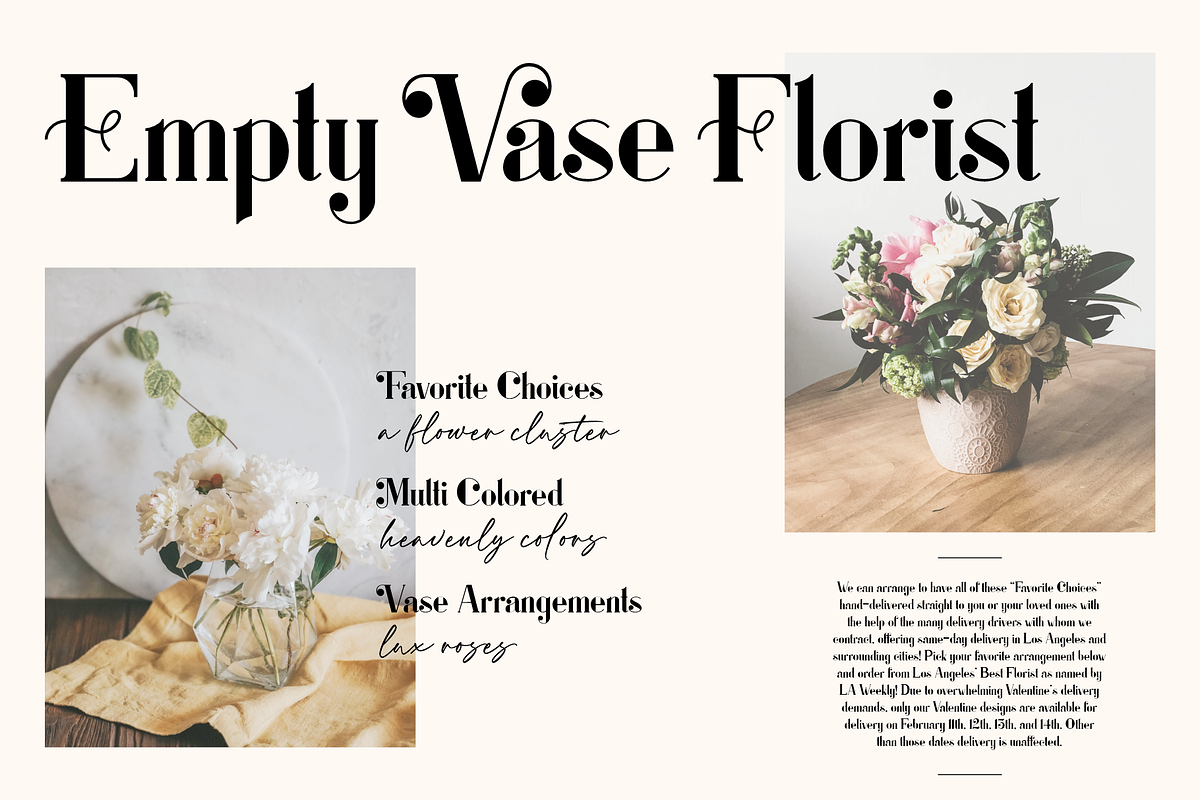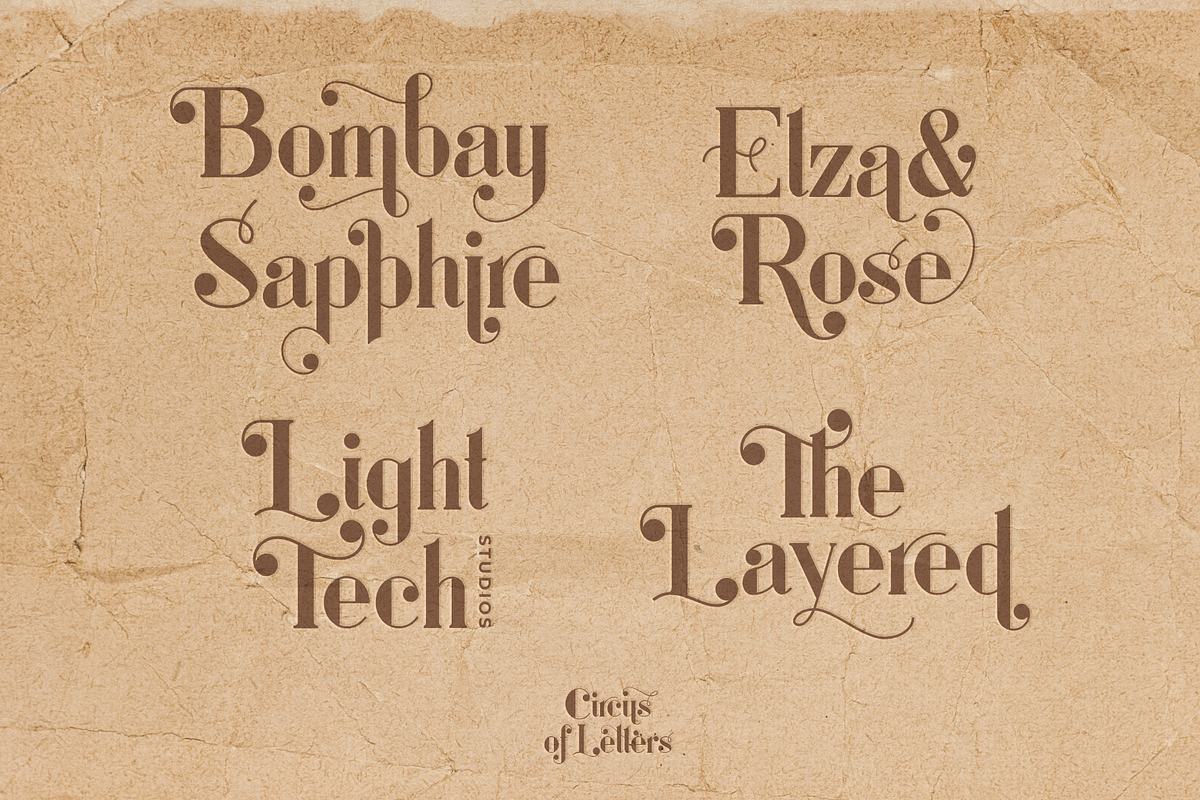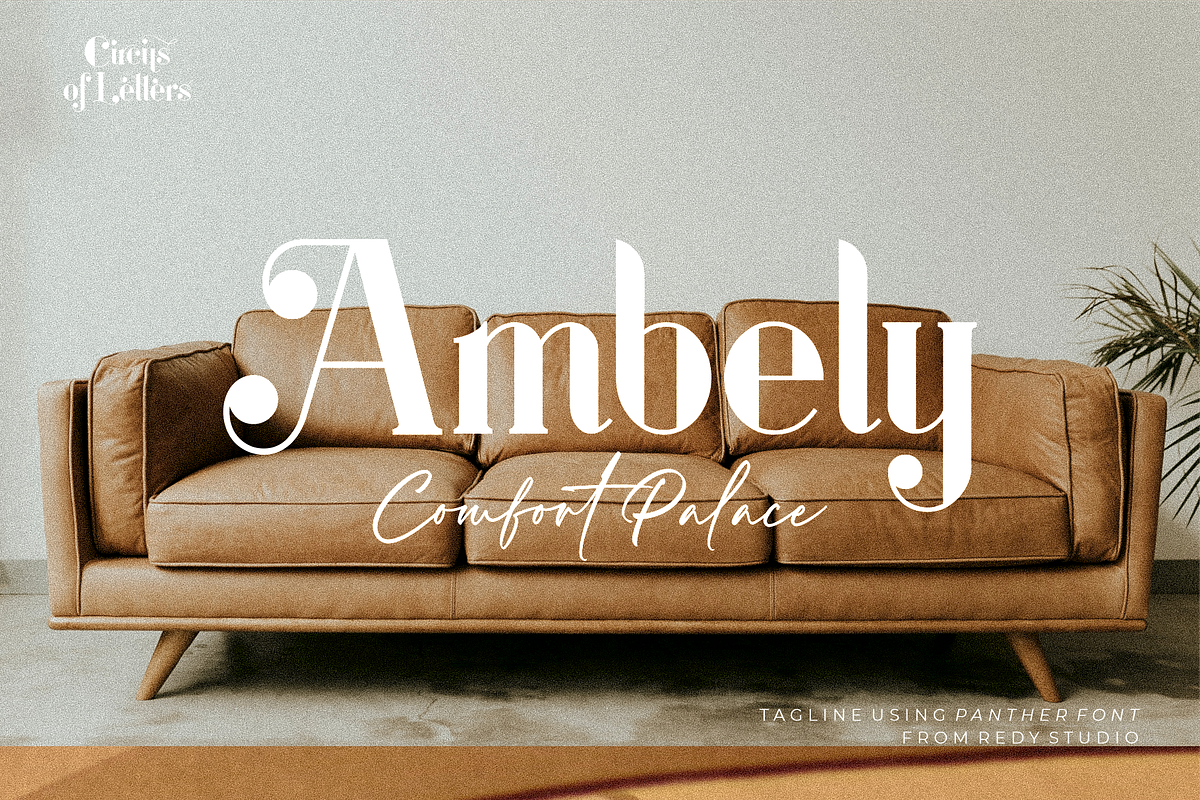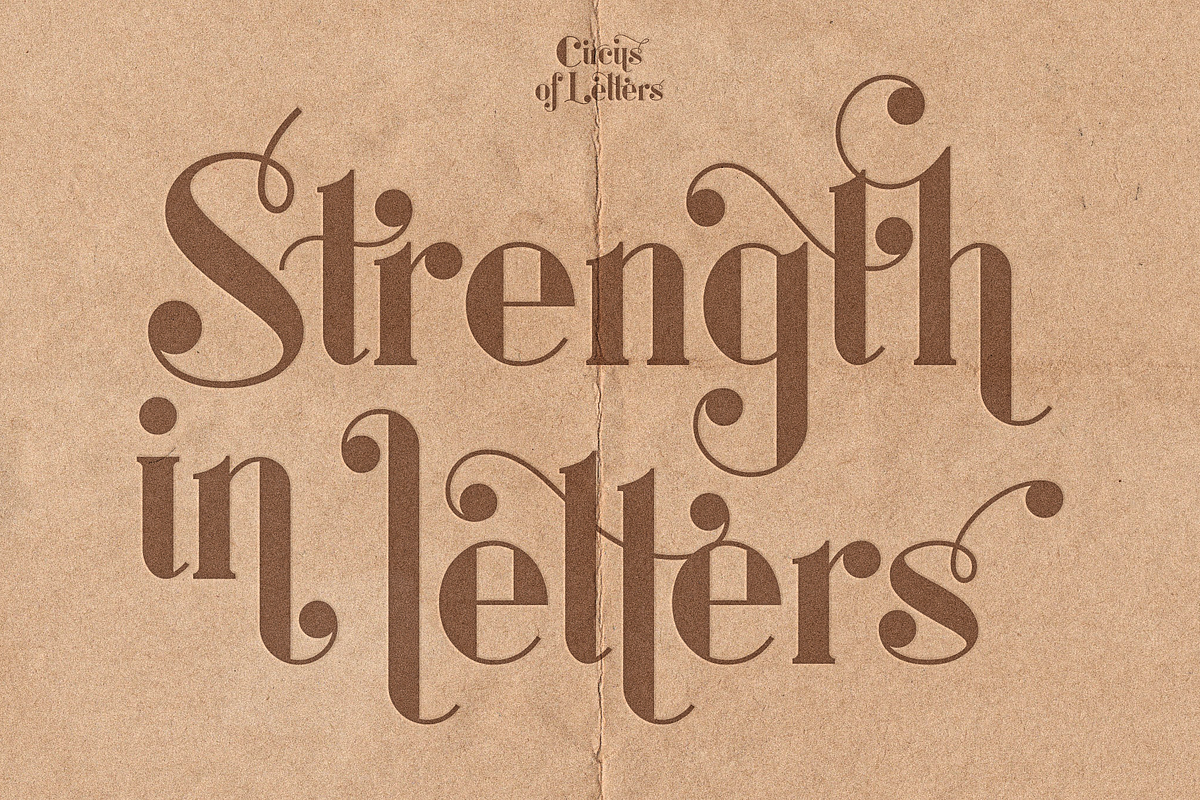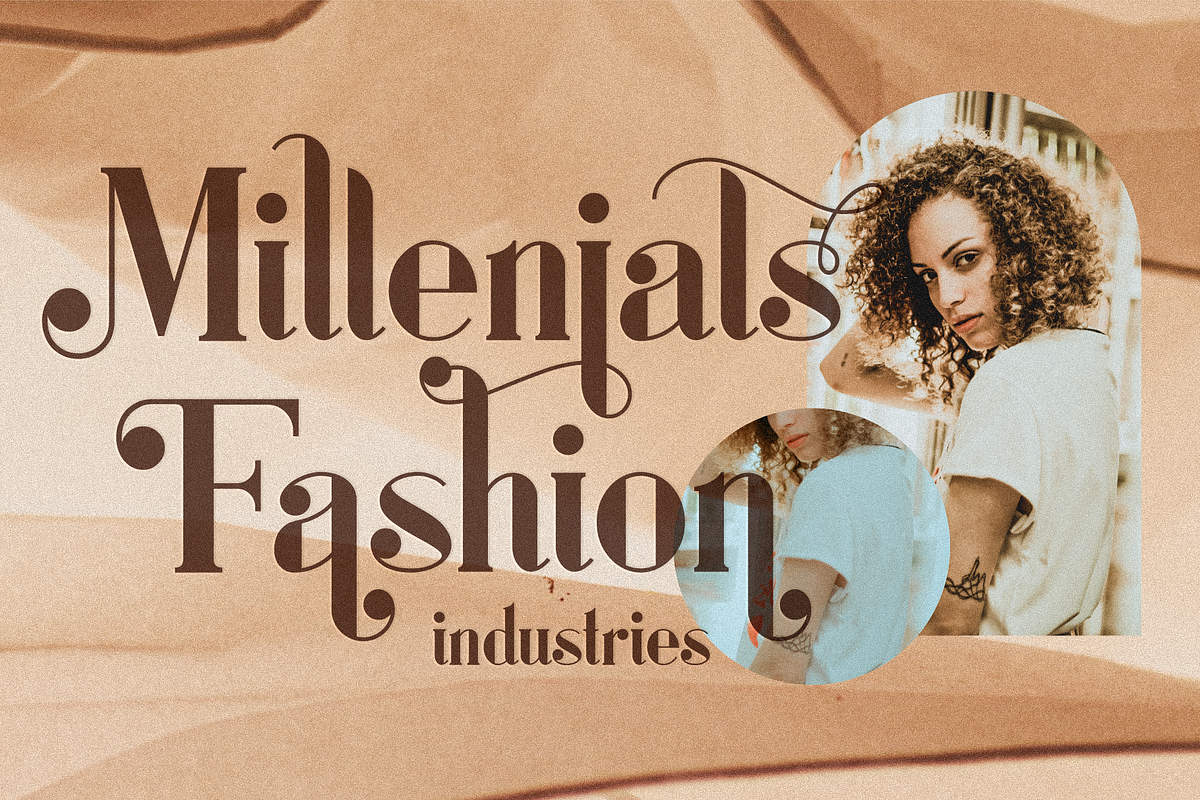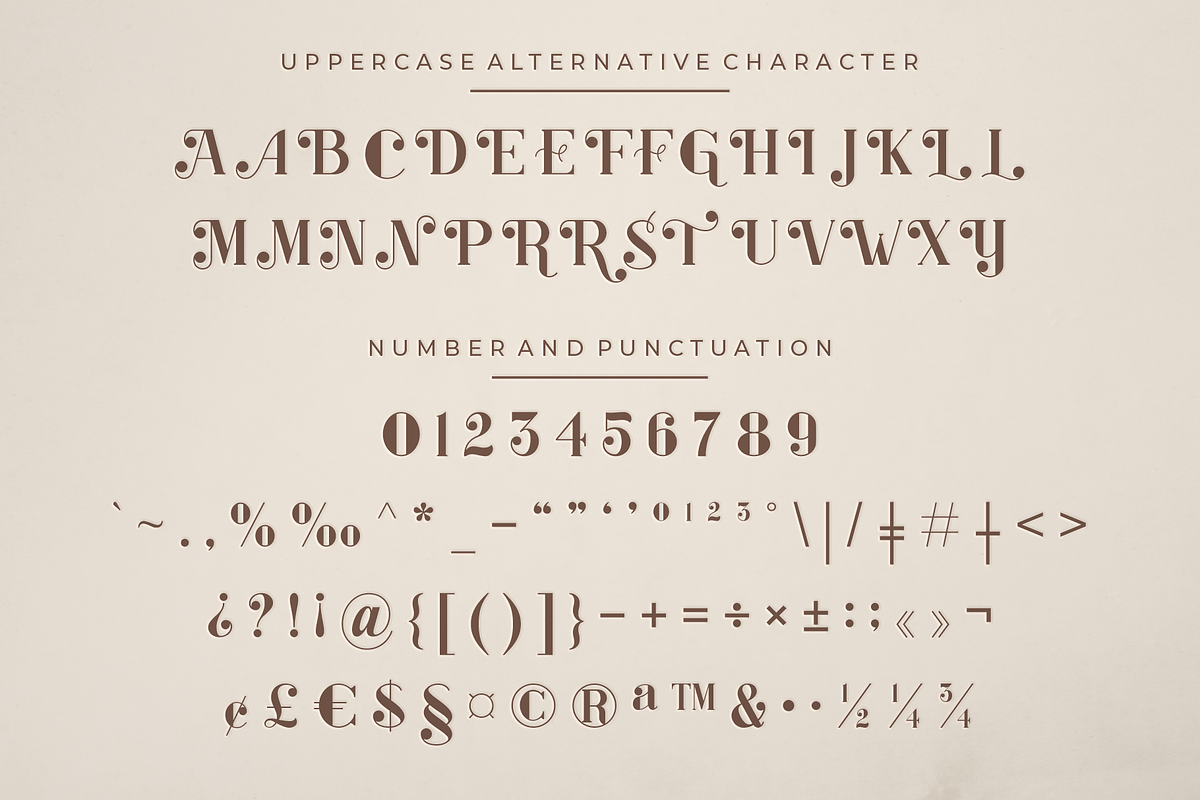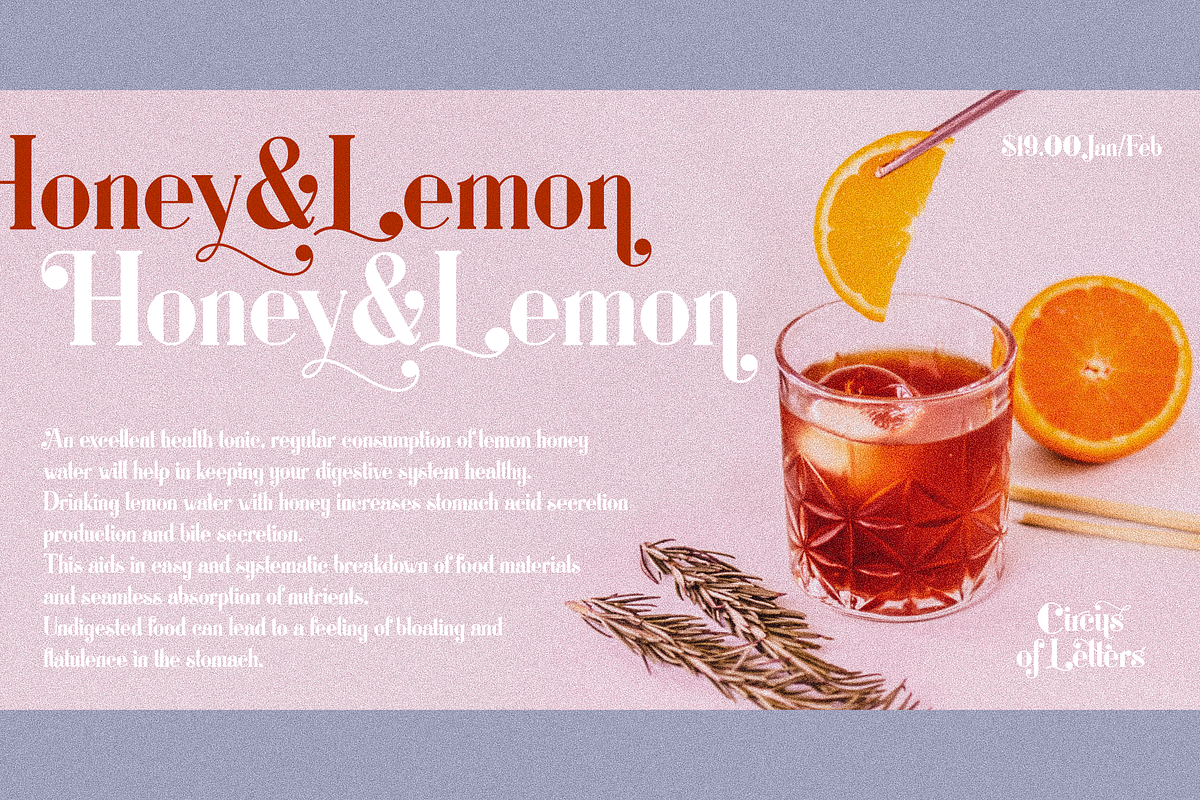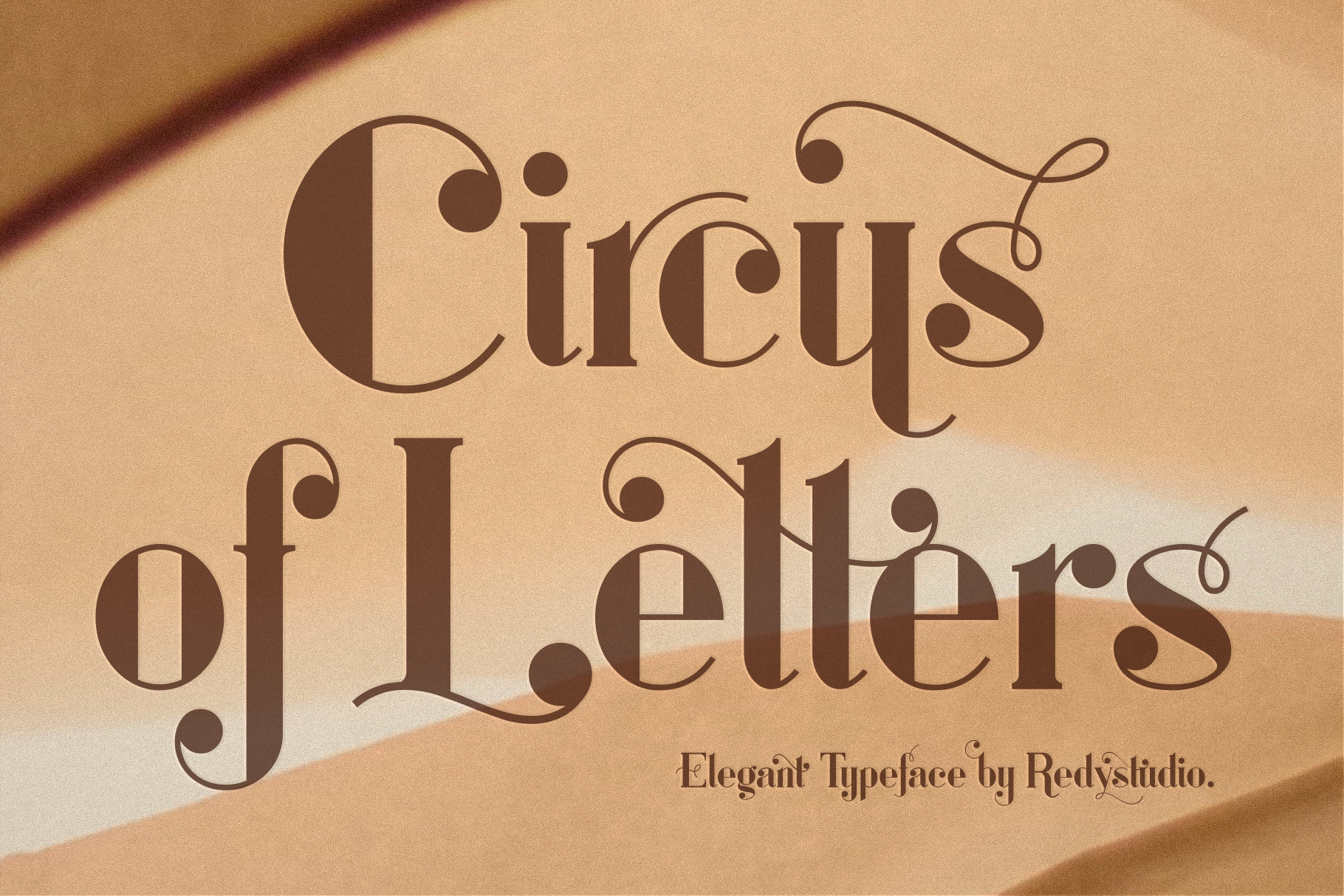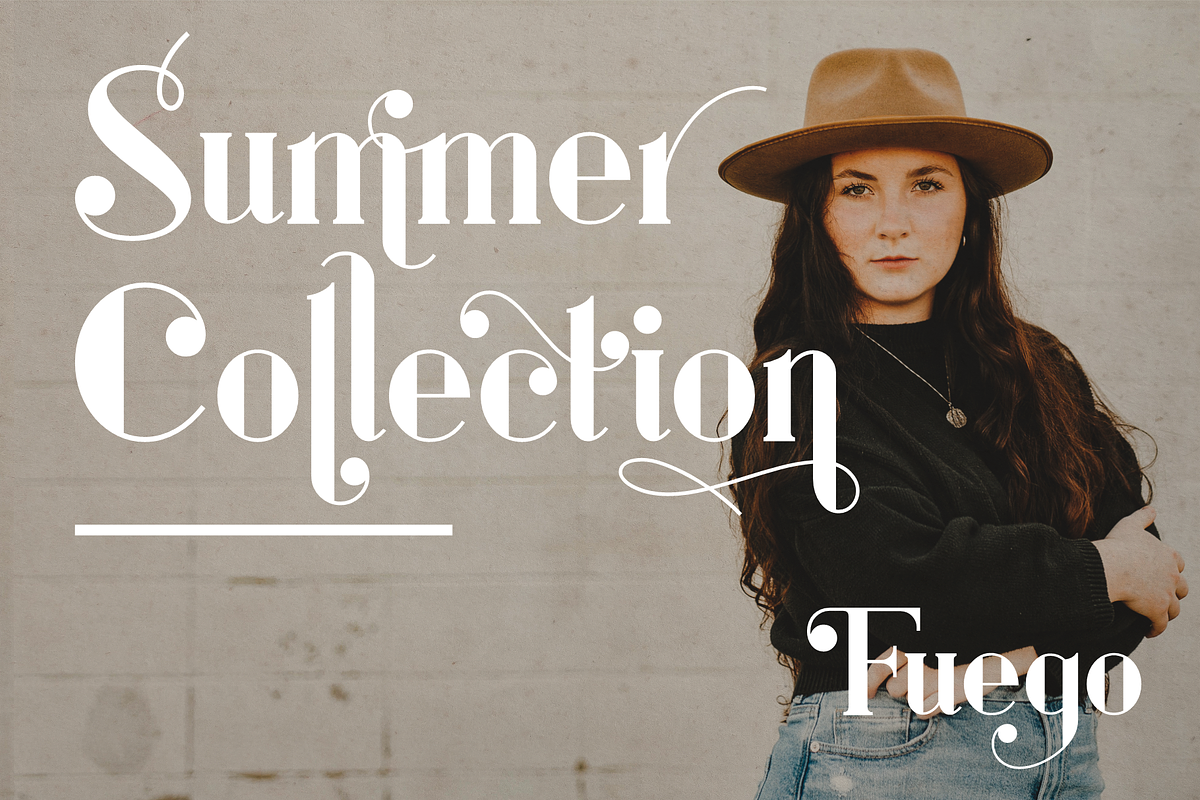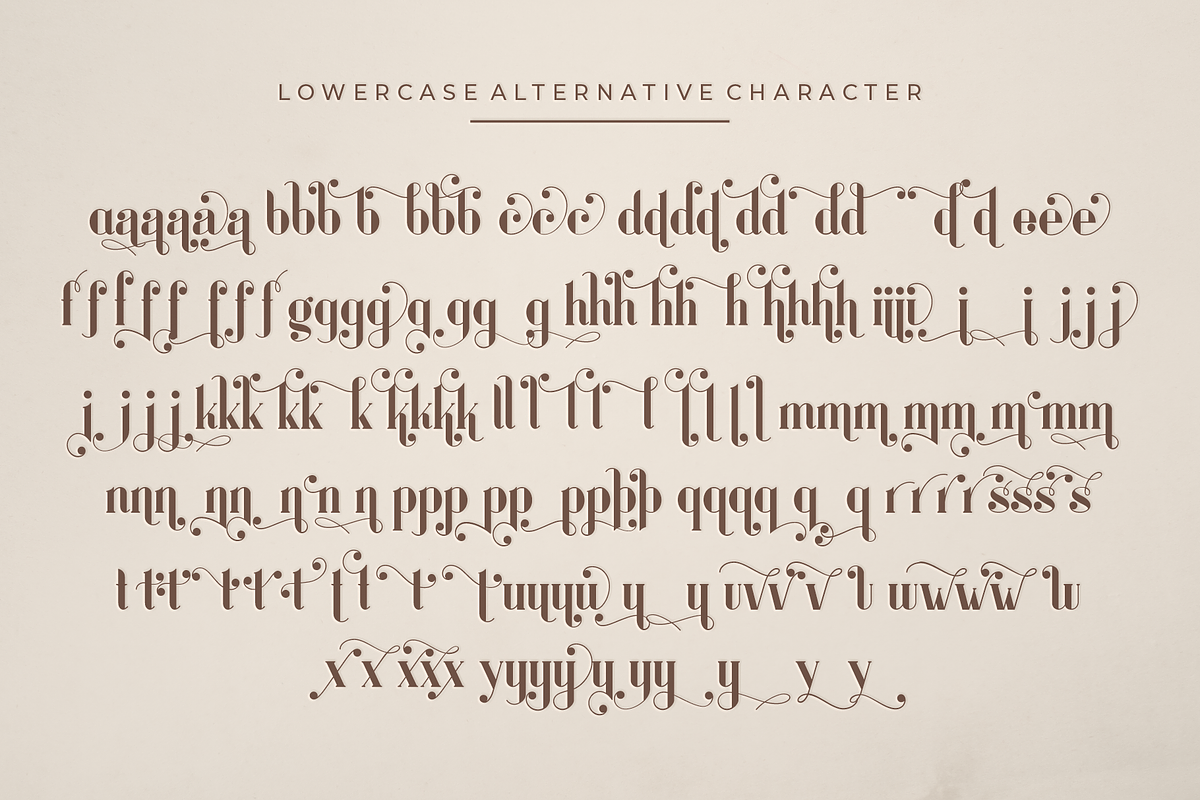
Circus of Letters – Fancy Typeface
Take a trip to the circus, exploring the colorful and playful world of our Circus of Letters Fancy Typeface. Inspired by vintage poster art, this set contains upper and lowercase letters, numbers, and tons of alternative characters, swashes, and multilingual characters. Circus of Letters is super versatile – it works great with simple designs or mixed with other fancy typefaces on more complex projects! If you’re looking for a cool, decorative font to add personality to your designs, look no further because you’ve found it!
Circus of Letters Features:
- A full set of upper & lowercase characters
- A ton of stylistic alternatives
- Multilingual symbols